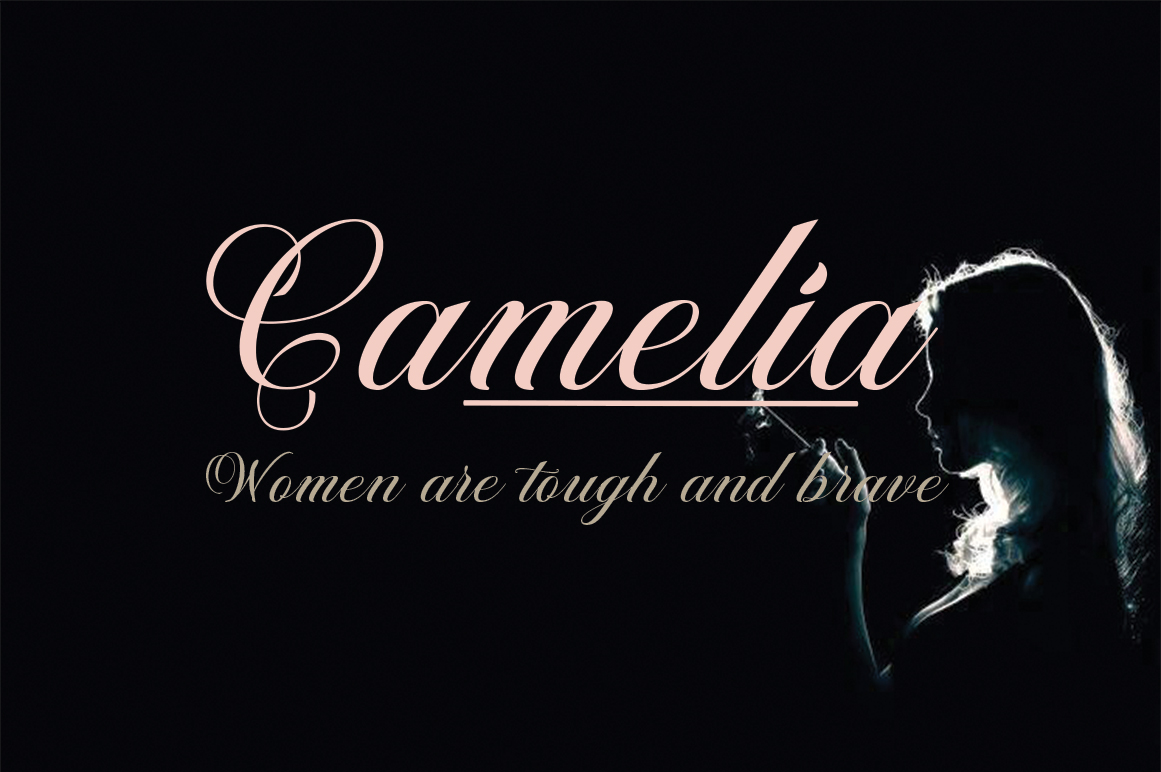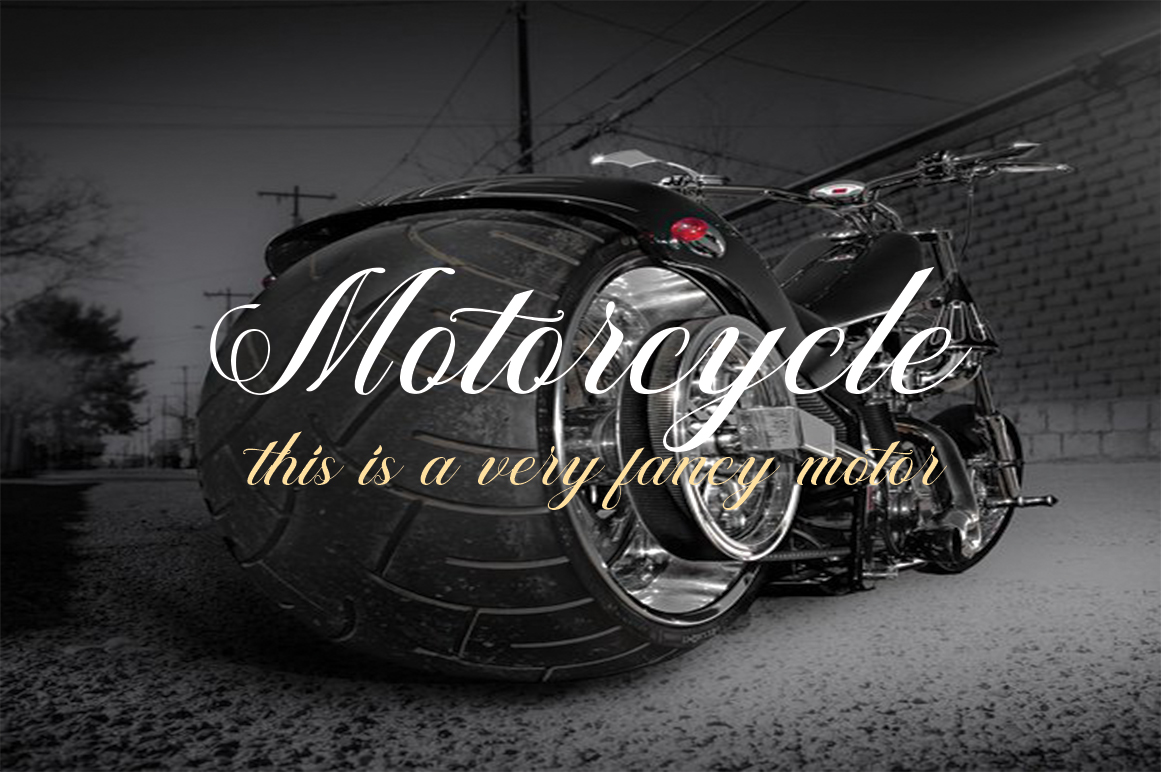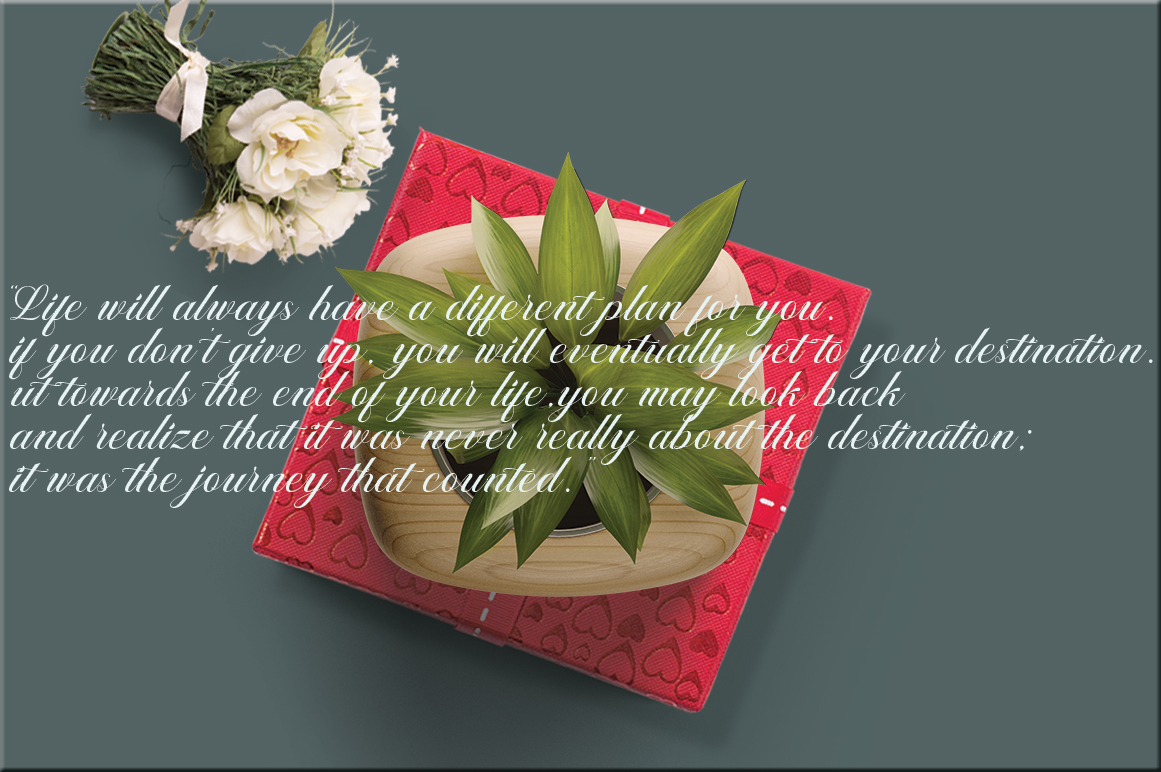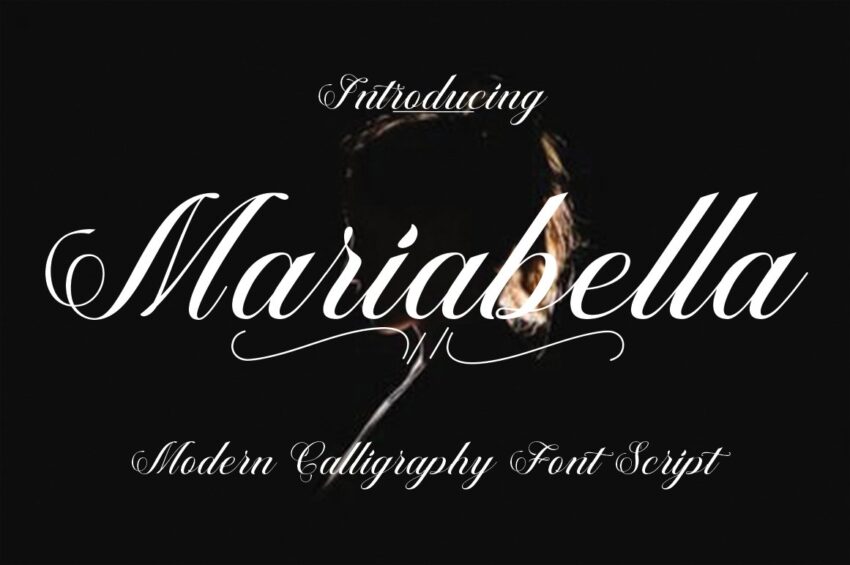
Introduction to Mariabella Font
Mariabella is a stunning and elegant script font, perfect for your more sophisticated or romantically inclined designs.
With tons of alternates, this font has a ton of customizing potential to give your designs a one-of-a-kind appeal .
Key Features of Mariabella Font
Why Choose Mariabella Font?
Mariabella Font offers exceptional quality and versatility, making it a valuable addition to your design toolkit. Whether you’re creating for personal projects or commercial use, Mariabella Font delivers professional results.